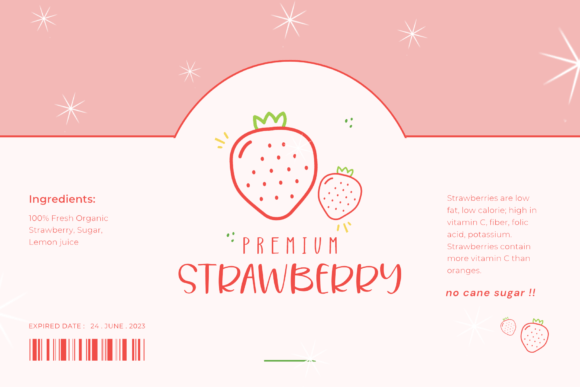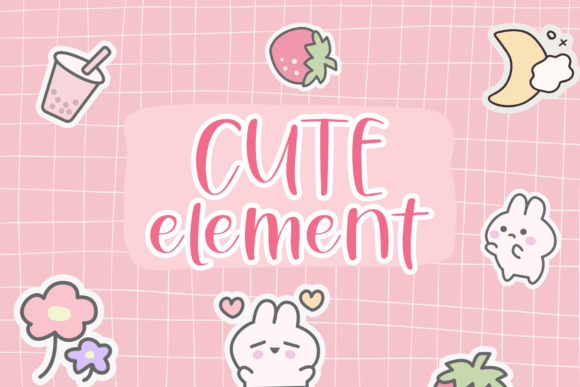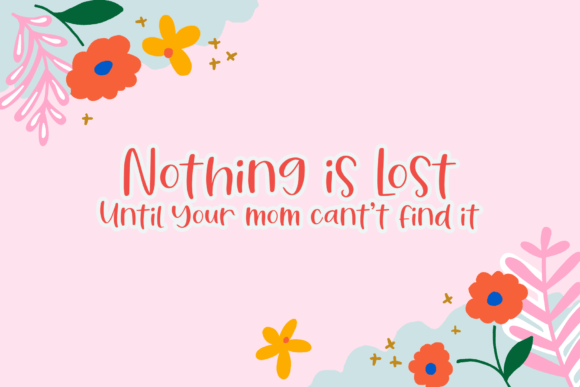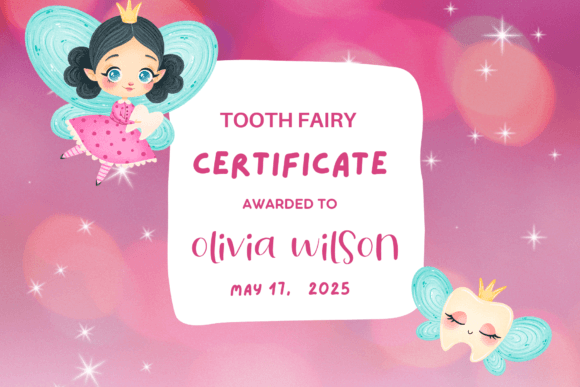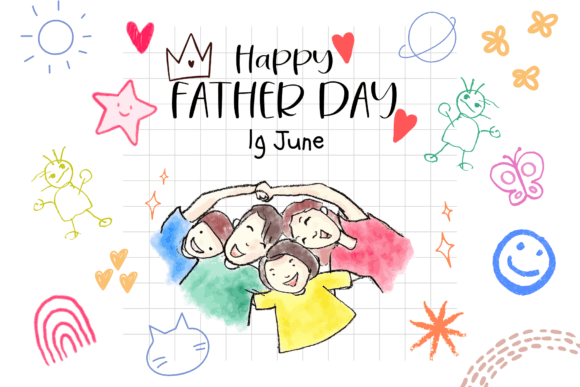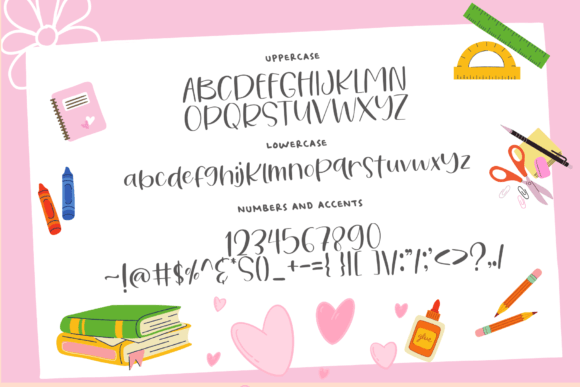
Cristella Rose Font: Add a Touch of Whimsy to Your Designs
In the world of typography, fonts can make or break a design. A great font can elevate your creation from ordinary to extraordinary, while a dull font can leave it flat. If you’re a designer or crafter looking for a font that can add a touch of whimsy and fun to your work, look no further than Cristella Rose. This quirky and fun-looking handwritten font is adaptable, simple, and friendly, making it an incredible asset to your font library.
What is Cristella Rose Font?
Cristella Rose is a unique and charming handwritten font that is perfect for designers and crafters who want to add a personal touch to their work. With its playful and carefree vibe, this font is ideal for a wide range of projects, from invitations and greeting cards to posters and social media graphics. Whether you’re creating something for a client or for your own personal use, Cristella Rose is sure to bring a smile to your face and make your design stand out.
Key Features of Cristella Rose Font
- Quirky and Fun-Looking: Cristella Rose has a playful and whimsical feel that’s perfect for designs that need a bit of personality.
- Adaptable: This font is versatile and can be used for a wide range of projects, from formal to informal.
- Simple and Friendly: Cristella Rose has a simple and approachable feel that’s easy to read and understand.
- Handwritten: This font has a personal and human touch that’s perfect for designs that need a bit of warmth and character.
Why Choose Cristella Rose Font?
So why choose Cristella Rose font for your next project? Here are just a few reasons:
- Unique and Eye-Catching: Cristella Rose is a one-of-a-kind font that’s sure to grab attention and make your design stand out.
- Easy to Read: Despite its playful feel, Cristella Rose is easy to read and understand, making it perfect for designs that need to communicate a message.
- Versatile: This font can be used for a wide range of projects, from digital to print, and can be easily paired with other fonts to create a unique look.
How to Use Cristella Rose Font
- Pair it with Other Fonts: Cristella Rose looks great when paired with other fonts, such as sans-serif fonts for a modern look or script fonts for a more elegant feel.
- Experiment with Colors: This font looks great in a variety of colors, from bright and bold to soft and pastel.
- Use it for Headings and Titles: Cristella Rose is perfect for headings and titles, where its playful feel can really shine.
In conclusion, Cristella Rose font is a quirky and fun-looking handwritten font that’s perfect for designers and crafters who want to add a touch of whimsy to their work. With its adaptable, simple, and friendly feel, this font is sure to elevate any creation and make it stand out. Whether you’re creating something for a client or for your own personal use, Cristella Rose is a great choice for any project.